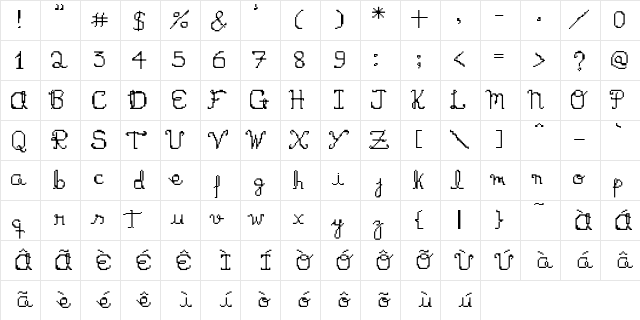
bithand 1
Design Context for bithand
bithand flows with the natural rhythm of handwritten lettering, making it ideal for designs that call for warmth and personal expression.
Font Pairing: Combine bithand with a simple geometric sans for maximum contrast - the tension between flowing curves and clean structure is a classic typographic pairing.
Pro Tip: Use bithand for short runs of text - names, titles, or taglines. Extended body copy in script faces tires the eye quickly.